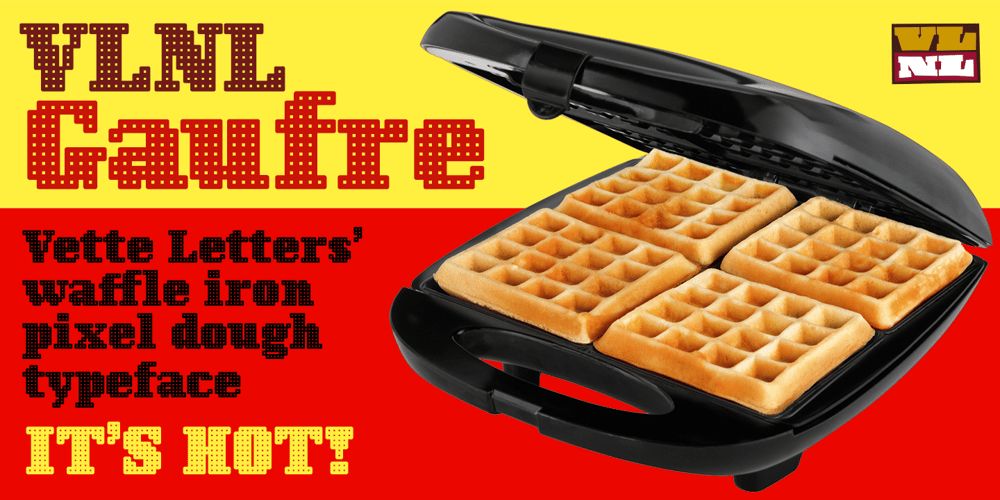
VLNL Gaufre
VLNL Gaufre font
VLNL Gaufre Font Family was designed by Donald Roos and published by VetteLetters. VLNL Gaufre contains 1 styles and family package options. VLNL Gaufre is a pixel-based font with holes designed by Donald Roos. Each character is built on a grid of doughnut-like elements, which makes it look like a kind of dried dog food, or Belgian waffles. Despite the grid Gaufre still has enough warmth due to the doughy, slightly rounded corners. And because it’s prepared with a hot waffle iron of course. The end result is a merry, chunky typeface that smells of doughnut. Use it for logos or headlines, just add butter and sugar or, better still, top it with whipped cream and cherries. Yummie!